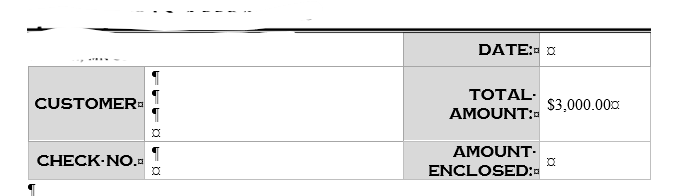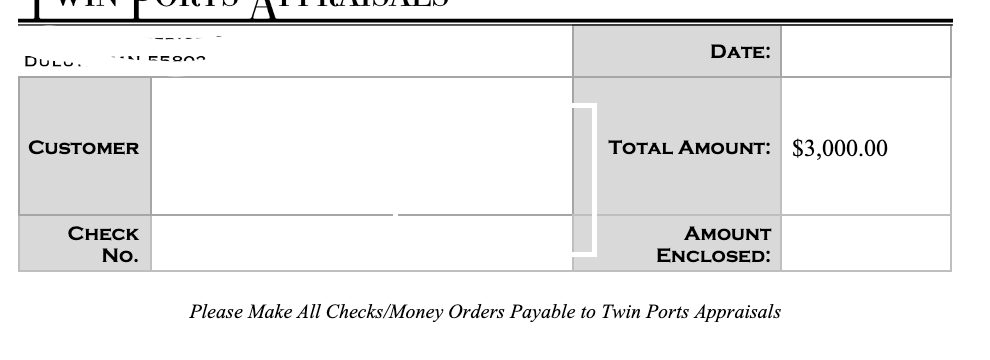
Font Differences between Mac and Windows
I'm using Word 16.66.1 on Mac and Windows H+S 2016 Word. Just recently when I moved a file from my Mac over to the Windows machine, a font misbehaved and enlarged itself by 2 points. The really odd thing was the font itself was registering at the correct size value even though, comparably, it was larger than the original. I already checked to make sure I was at the correct zoom ratio (100%) and the error persisted. It even created spill over in my table setup which doesn't exist in the Mac version. Now I know there should be little hiccups between the two versions but this is a core font shared between both systems. I verified I was using a Windows font on my Mac (Copperplate Goth, so I'm completely lost.
It doesn't happen with other fonts that I've seen. This is insane because having to drop a font size down 2 points every time I switch devices.
The first screen shot is showing the font in All Caps, the second is using Small Caps. The point size will display as the same, but the size relates only to the initial capital in small caps text.
The shots do not appear to be using identical fonts. This is visible on the inside of the cap A, which has a thinner crossbar that is lower on the first screen shot.
The problem is on your Mac, not Windows. Your Mac file is not using the Microsoft Copperplate Gothic. Your Windows file is.
Here's the repaired Word file with the headings set to 10pt. Microsoft Copperplate Gothic Bold Small Caps, plus PDFs showing the appearance under both macOS and Windows: Copperplate Gothic Font Fixed
They're for invoice forms. Both fonts are Copperplate Gothic Regular set to 10 point at 100% zoom.
That sounds like the font is not correctly installed on one of the machines. Word will display the expected font name in the font dropdown, even when it is not installed.
That should be the Mac version and the Windows interpretation of it. I know they don't appear to be using the same font, but according to Word, they are. As for the capitalization, I even retyped the words and still bugged.